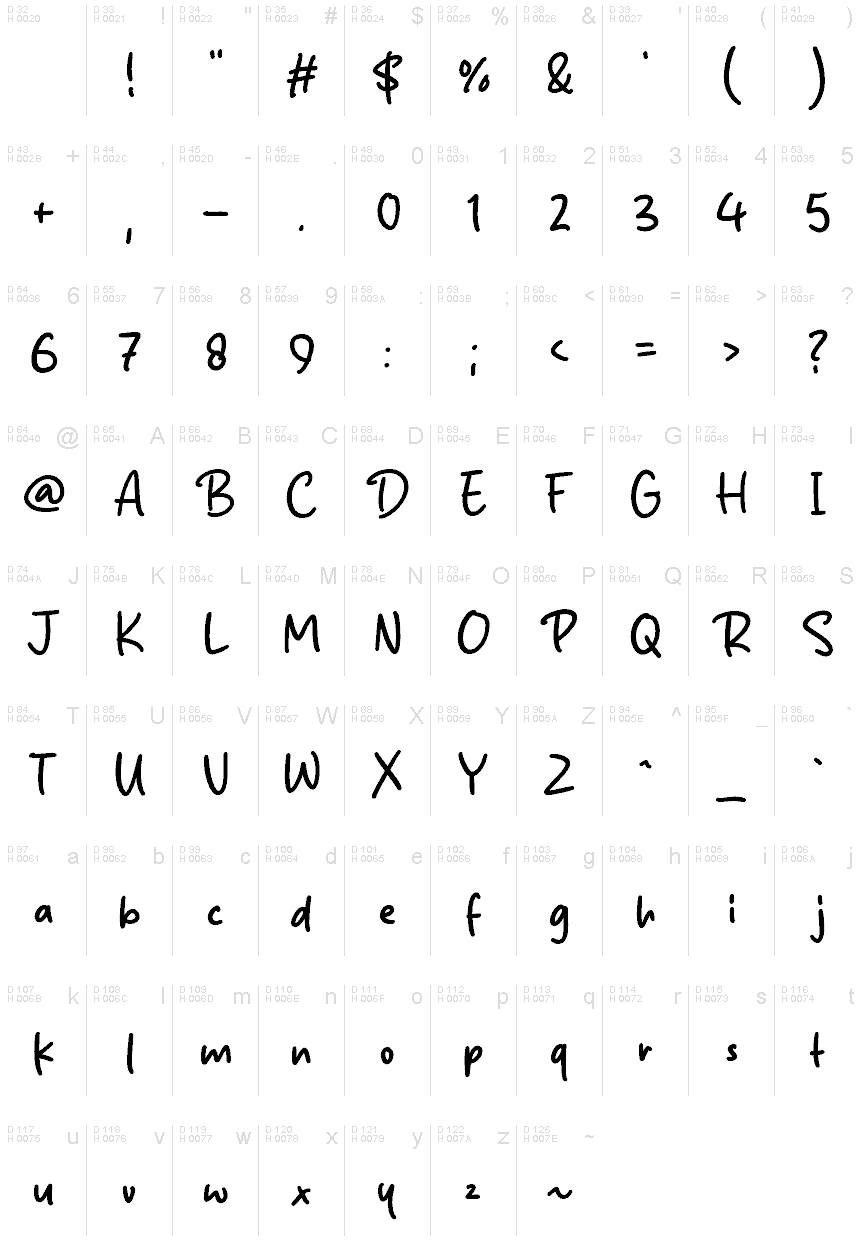
Dristan Story
Dristan Story font by MJType is a charming handwritten typeface with an expressive modern style. Featuring both uppercase & lowercase letters, the font delivers all it takes for the making of beautiful typography. Special characters are also included in its unique character set.
With Dristan Story, you can create logotypes, badges, labels, product packaging designs, advertisements, book covers and content writing, quotes in general…